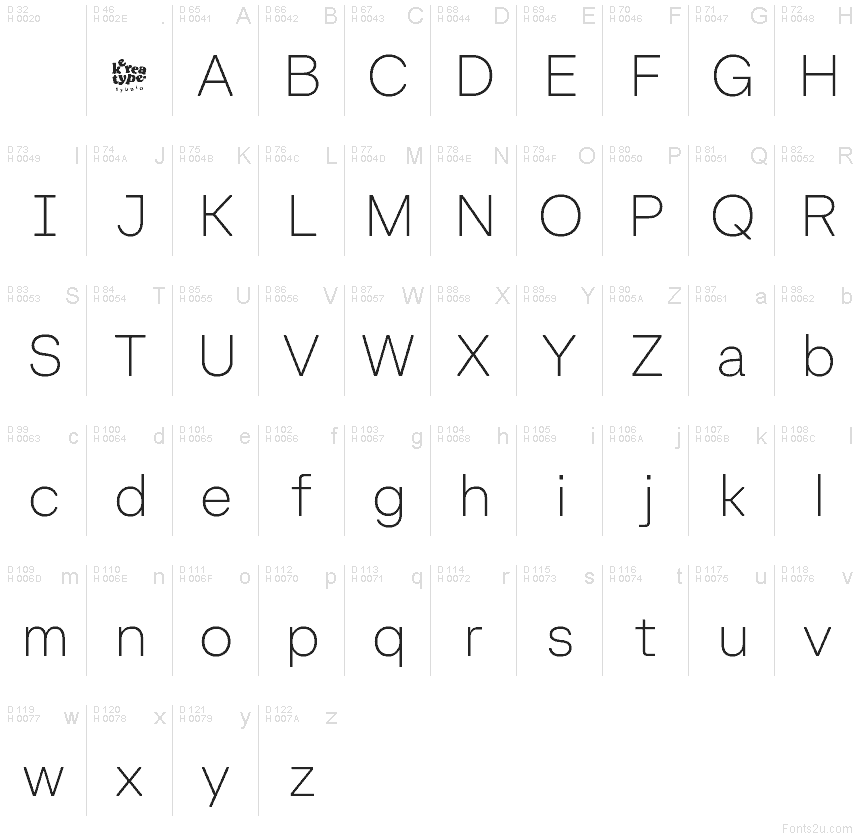
Baru Sans Demo Thin
Baru Sans Thin font by Kereatype Studio is a free modern sans serif typeface. Part of the Baru Sans family, this ultra-light cut solves a familiar issue: you want airy elegance without your letters vanishing. Its whisper-thin strokes, generous counters, and calm, even rhythm stay crisp at large sizes, giving headlines and logos a weightless, refined presence without feeling brittle.
Using Baru Sans Thin, you get a clean, upscale voice that shines on fashion branding, beauty packaging, editorial titles, hero banners, tech logos, and portfolio sites. The spacing feels effortless, so words glide rather than crowd, keeping imagery front and center. For a simple pairing tip, set supporting text in Baru Sans Regular to ground the shimmer of this free font.